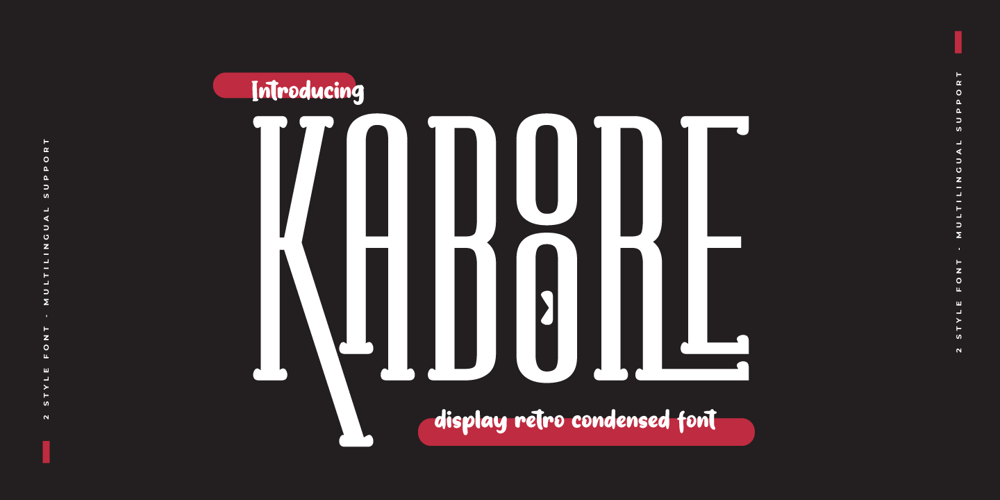
Kaboore Font Family was designed by Rozikan and published by Twinletter. Kaboore contains 2 styles and family package options. Introducing our newest font Kaboore, a retro condensed themed font, is a clean and modern typeface that gives off a strong, unique, and clean impression. Its thick, sturdy appearance is perfect for creating attention-grabbing titles and headlines. it is slightly compressed so it works well in medium or large font sizes while maintaining legibility.This Kaboore font is designed with 2 styles in the form of the slab and sans, also enriched with optional ligatures, so use this font immediately to get your project extraordinary.What’s Included :- All glyphs Iso Latin 1- Alternate, Ligature- Simple installations- We highly recommend using a program that supports OpenType features and Glyphs panels like many Adobe apps and Corel Draw so that you can see and access all Glyph variations.- PUA Encoded Characters – Fully accessible without additional design software.- Fonts include Multilingual support